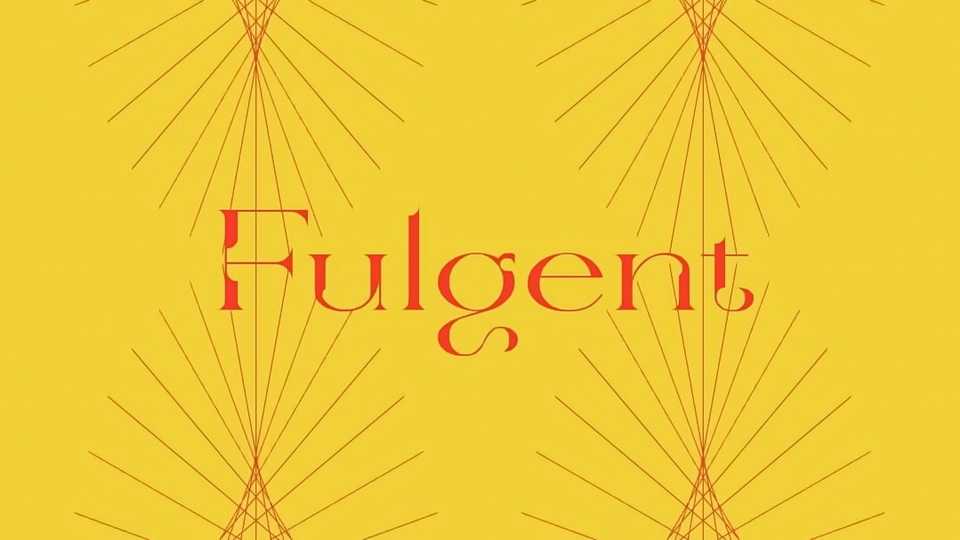
Download Fulgent font, a display serif typeface with high contrast strokes. The most significant feature of Fulgent is the arch-shaped hollows at the intersections of its strokes.